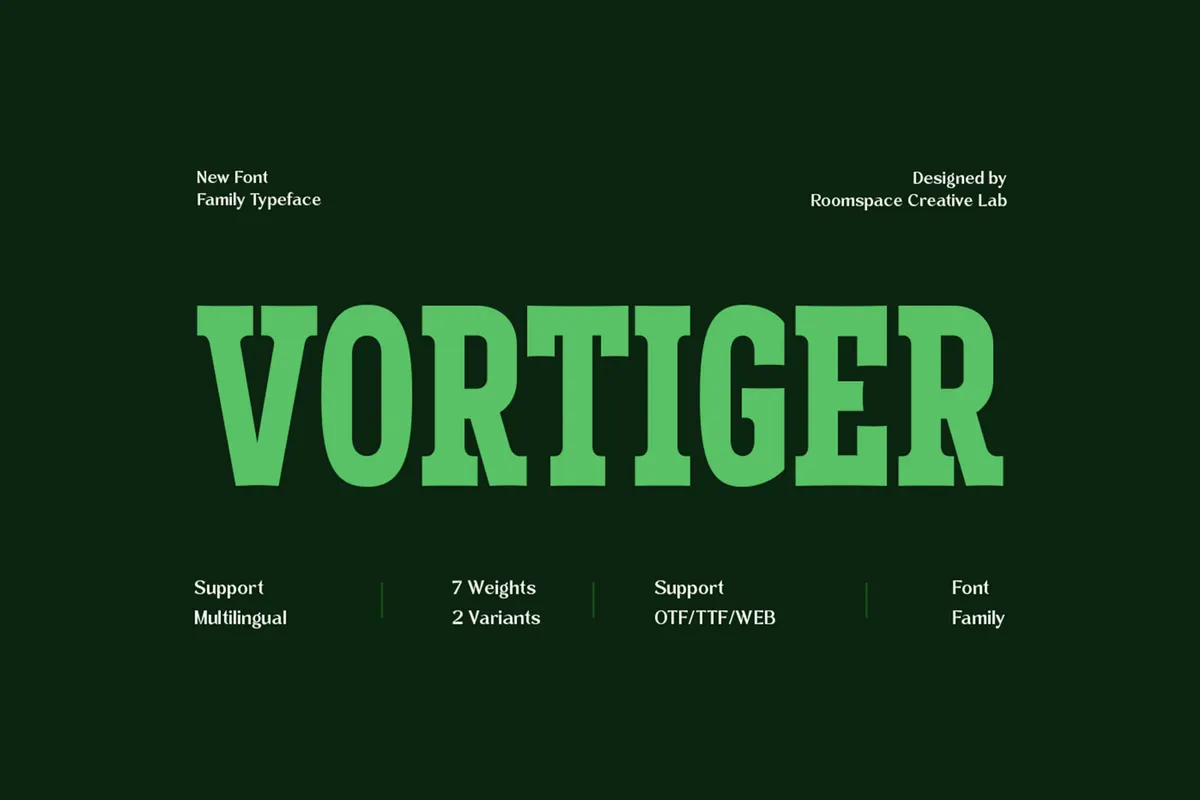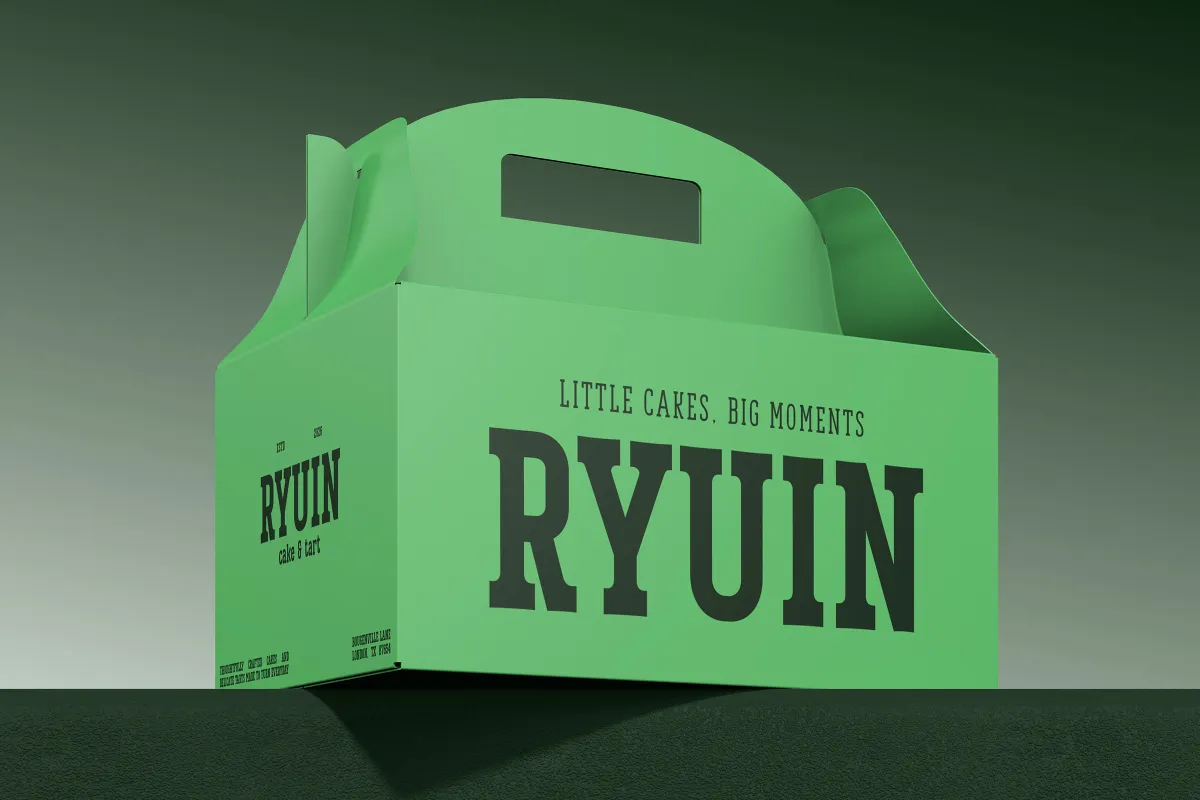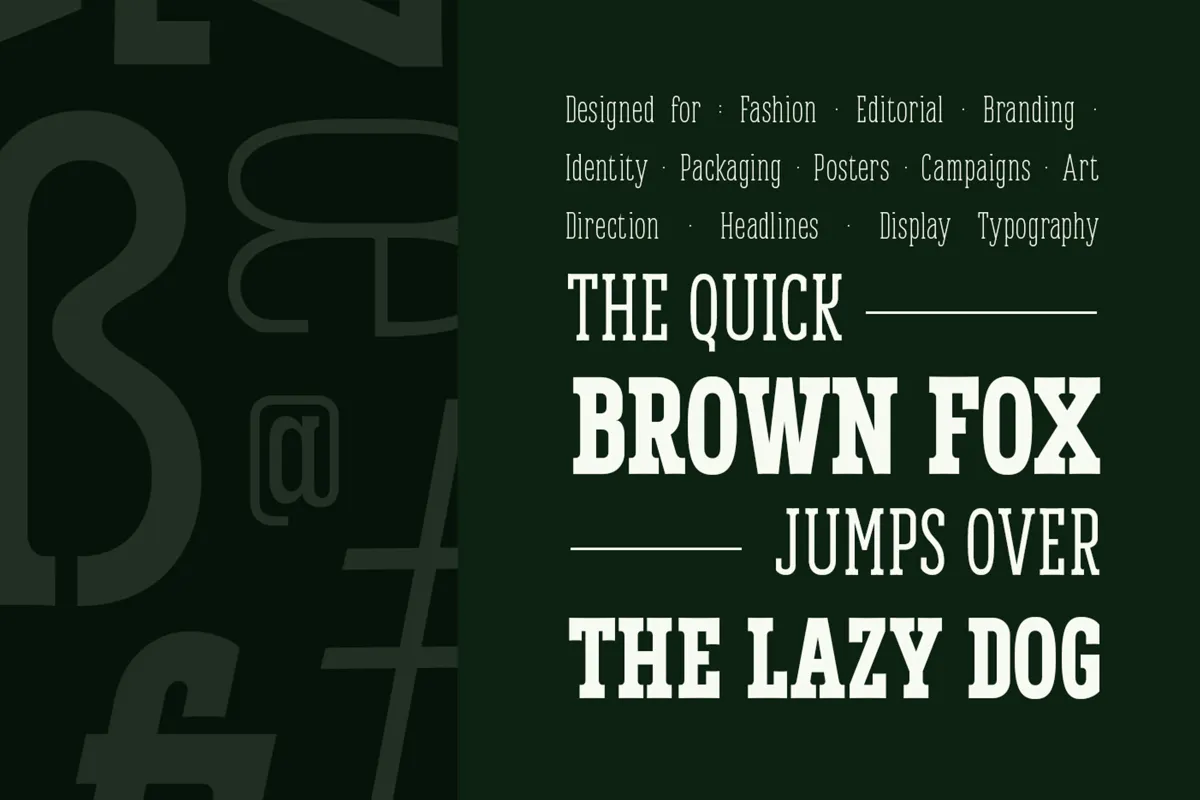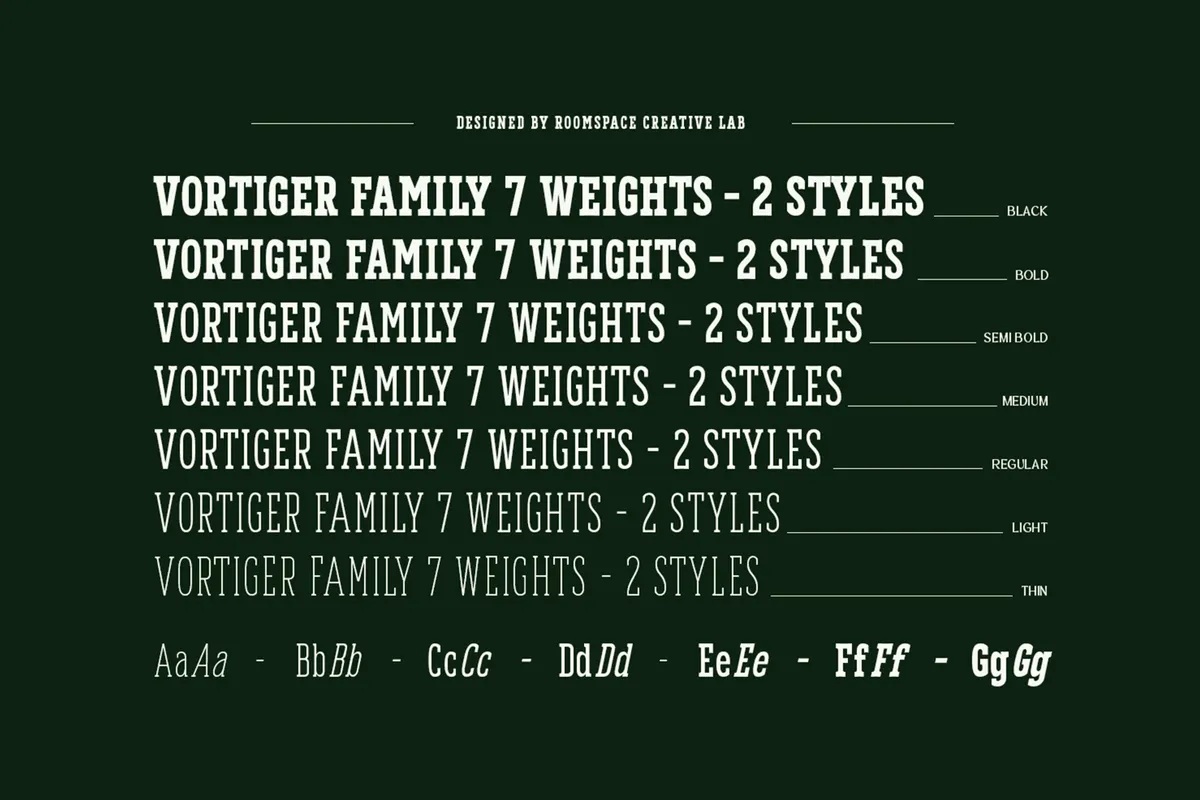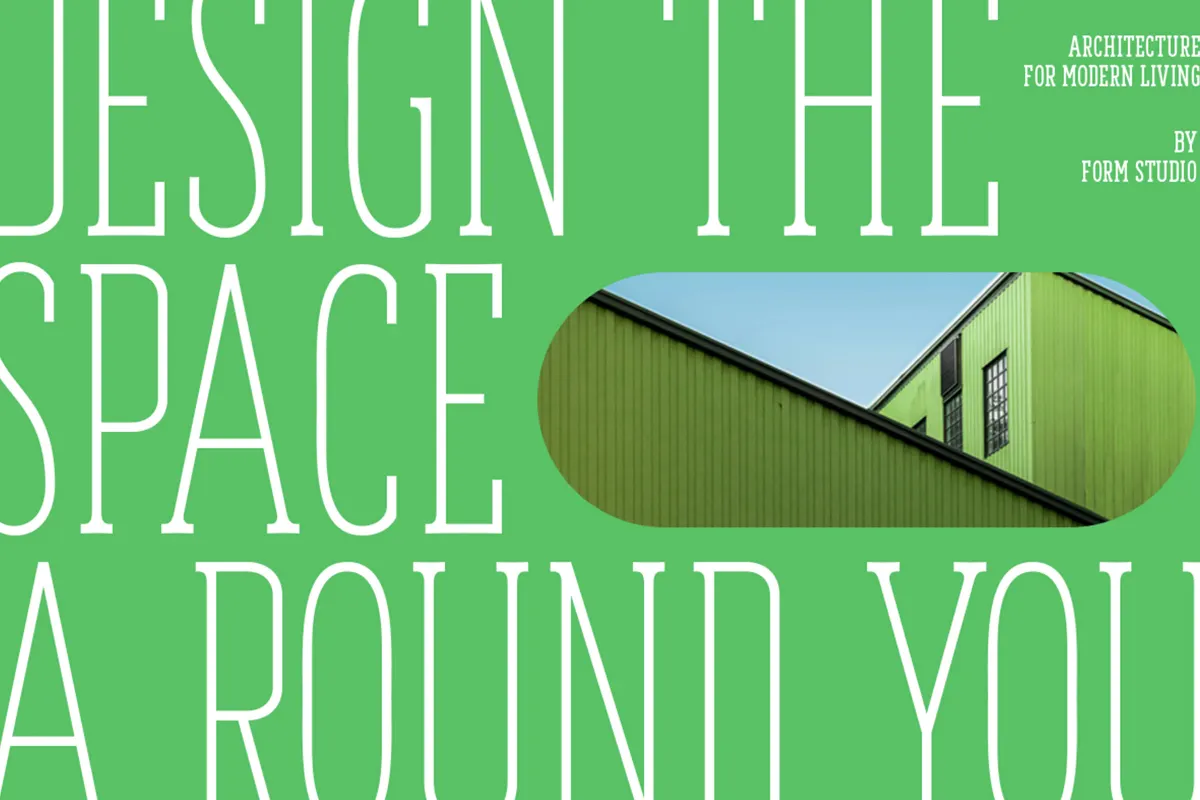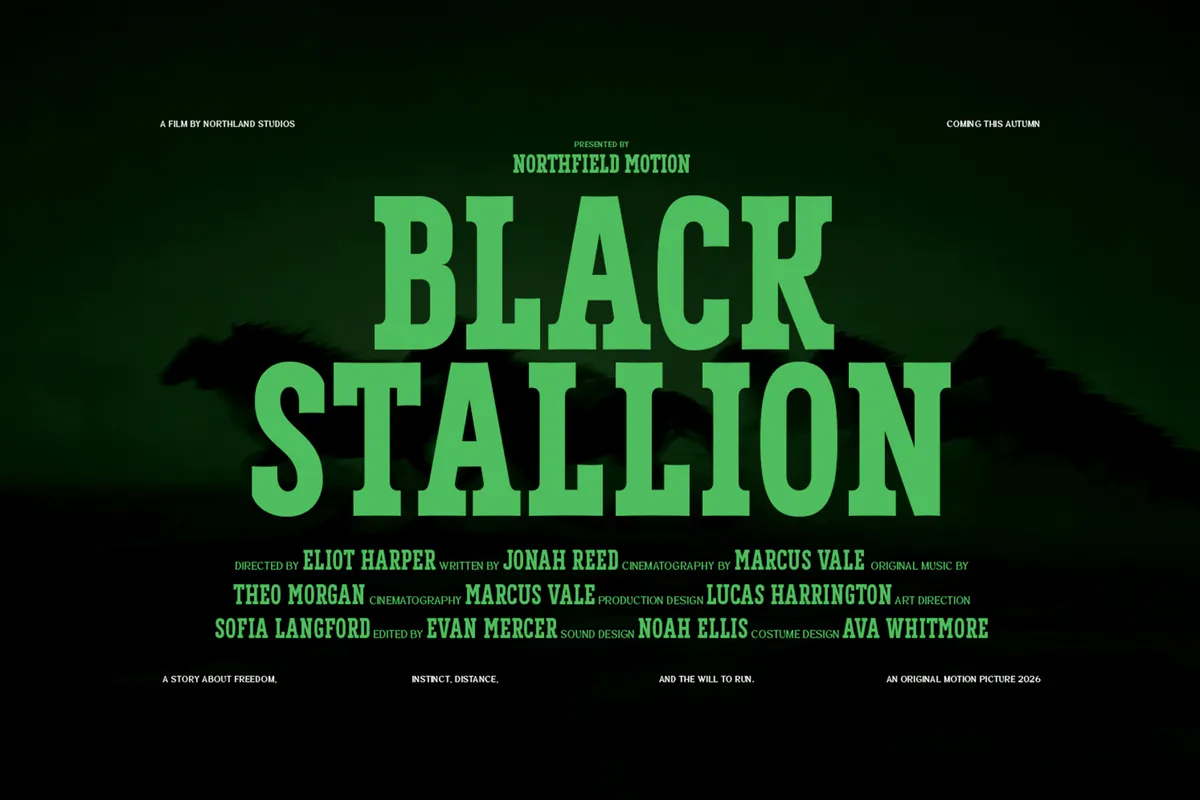
Vortiger - Condensed Western Serif Family
Vortiger is a western serif font drawn tall and condensed, with heavy bracketed serifs that sit on the baseline like the boards of an old storefront sign. The weights run from a spindly Thin to a Black that reads as a wanted poster at the far end of the street.
Seven weights, each with its own oblique, make it a working family and not a single display cut. Use it for bourbon and whiskey labels, ranch and saddlery branding, rodeo posters, western film titles, barbecue menus, outdoor apparel, and craft packaging.
- 14 styles: Thin, Light, Regular, Medium, SemiBold, Bold, Black, each with an Oblique;
- uppercase & lowercase;
- numerals, punctuation & symbols;
- standard ligatures and fractions;
- Latin-1 Western European;
- 235 glyphs per style.